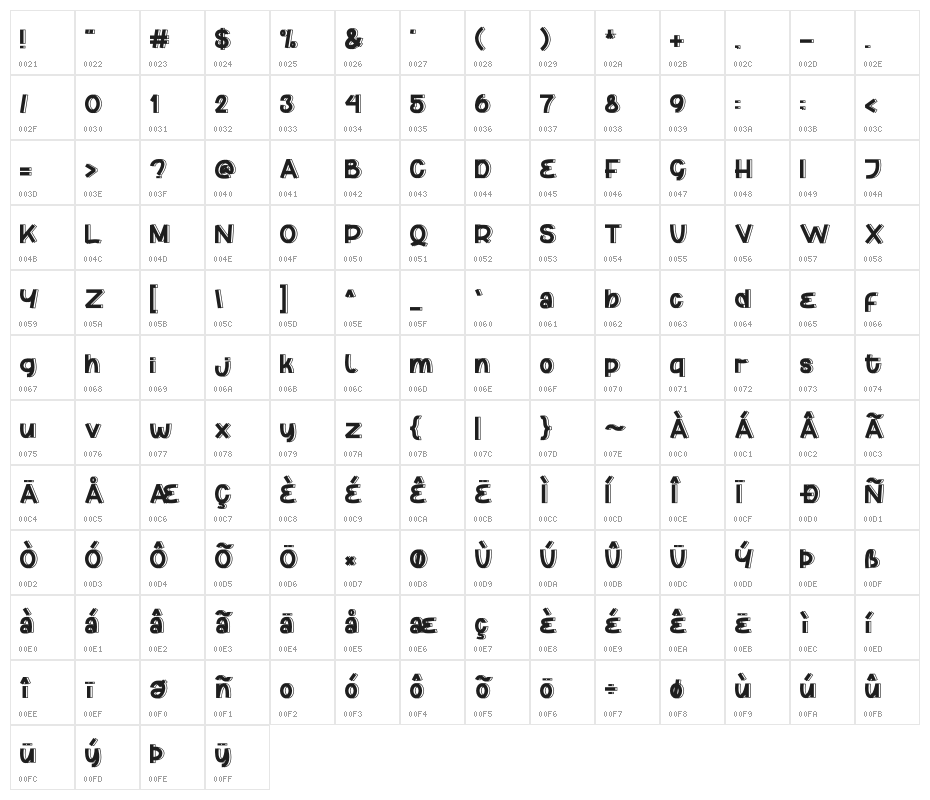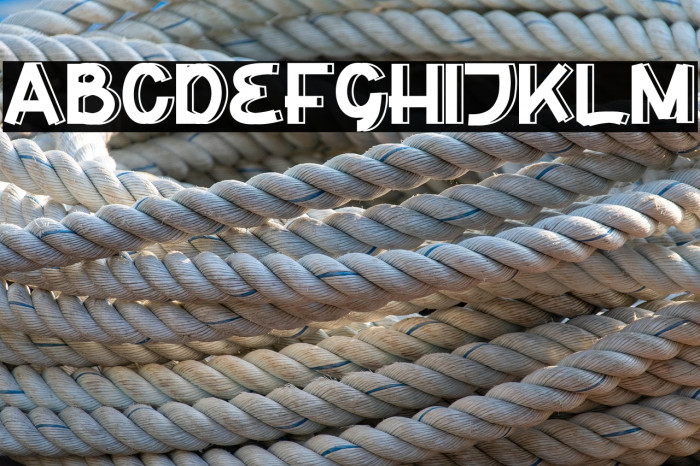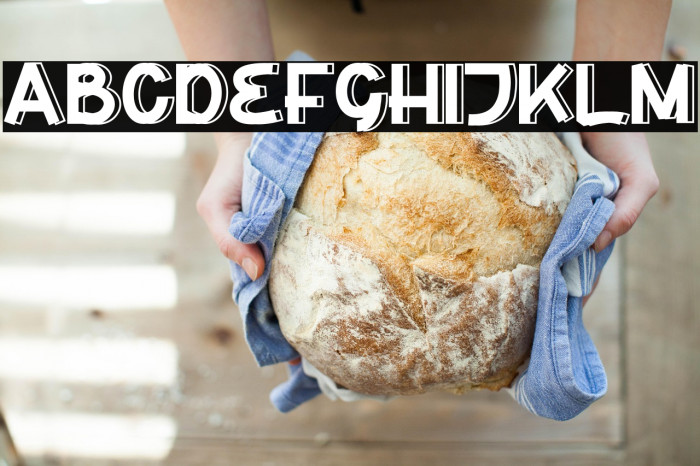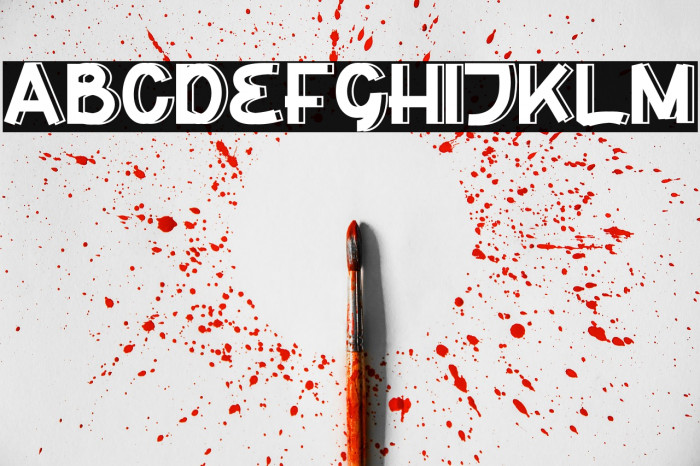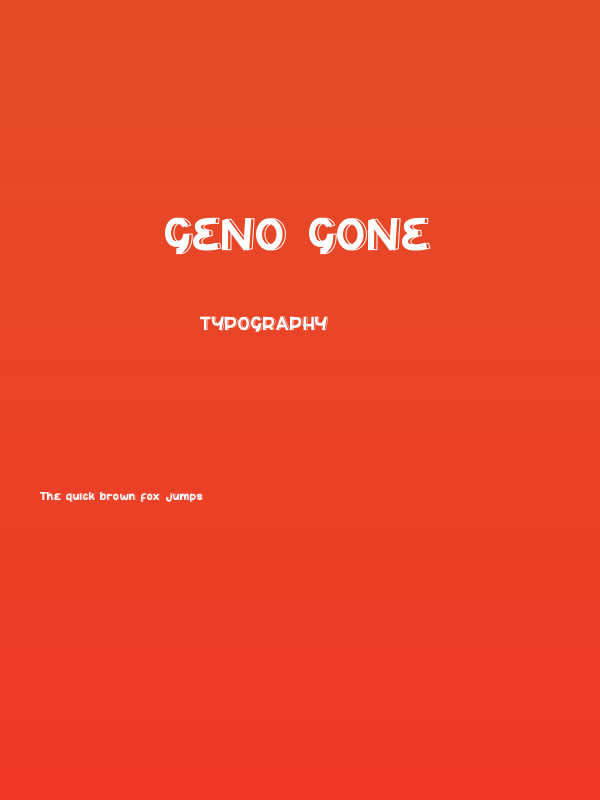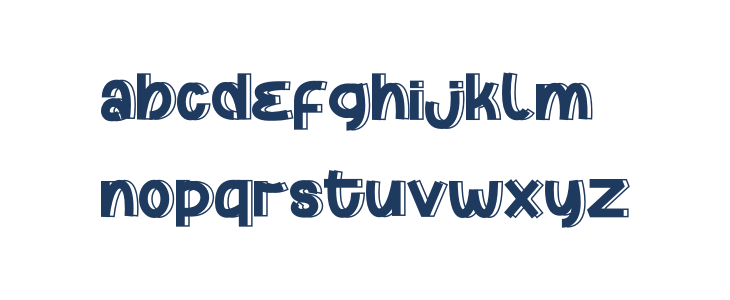
Geno Gone Font
Geno Gone Description
This font features a playful and bold style with a unique shadow effect that gives it a three-dimensional appearance. The uppercase and lowercase letters are designed with a consistent width, creating a uniform look across the typeface. The characters have a whimsical, cartoon-like quality, making them stand out with their thick strokes and contrasting shadows. The numbers and special characters maintain the same playful aesthetic, ensuring cohesion throughout the font. This design is ideal for projects that require a fun and engaging visual element.
GENO-GONE UPPERCASE
GENO-GONE LOWERCASE
GENO-GONE OTHER CHARS
| Overall Style | Playful, Cartoon-like |
| Proposed Projects | Ideal for children's books, comic strips, playful branding, and eye-catching posters. |